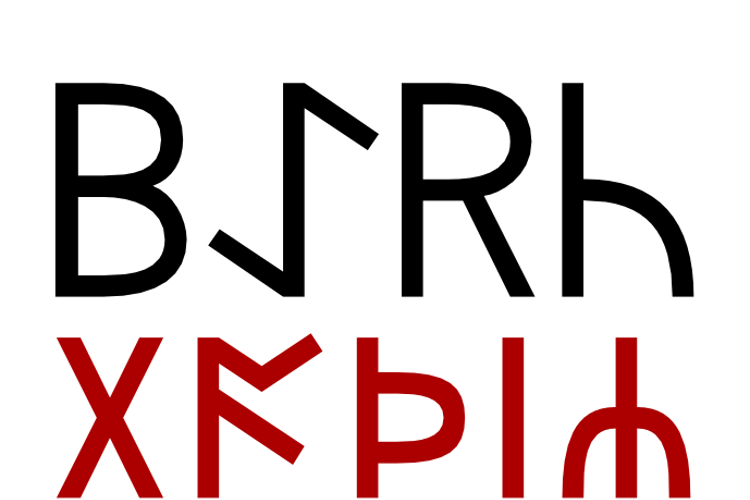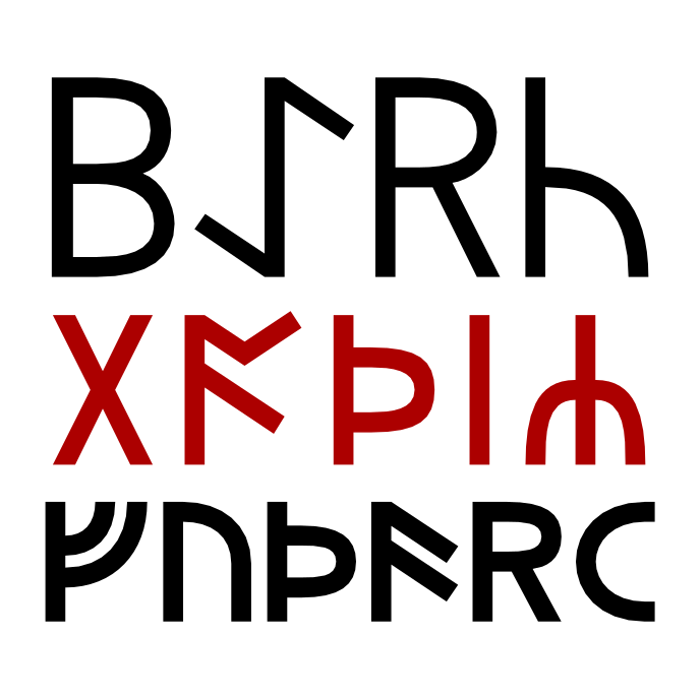
Beorc Gothic Font
About Beorc Gothic Font
Beorc Gothic is a runic font family with a design inspired by the European sans-serif typefaces of the 19th and 20th centuries. It contains a full implementation of the "Runic" block of Unicode 7.0, as well as arabic numerals and many useful punctuation characters and symbols.